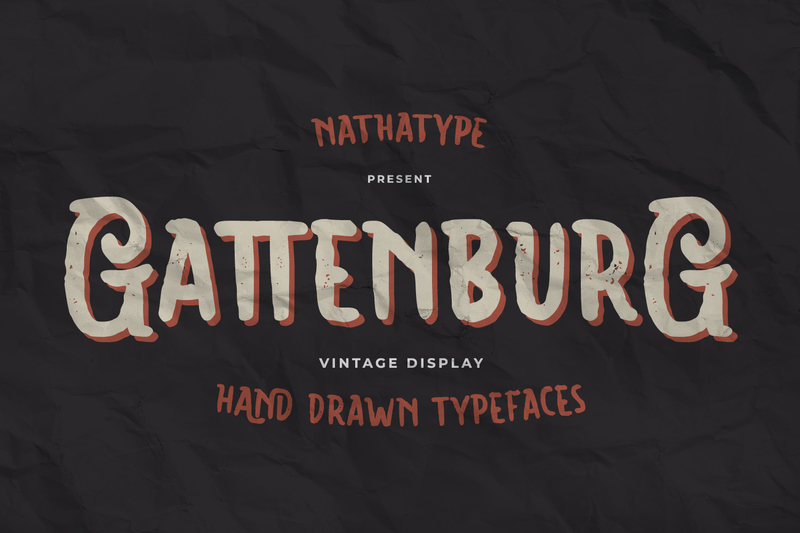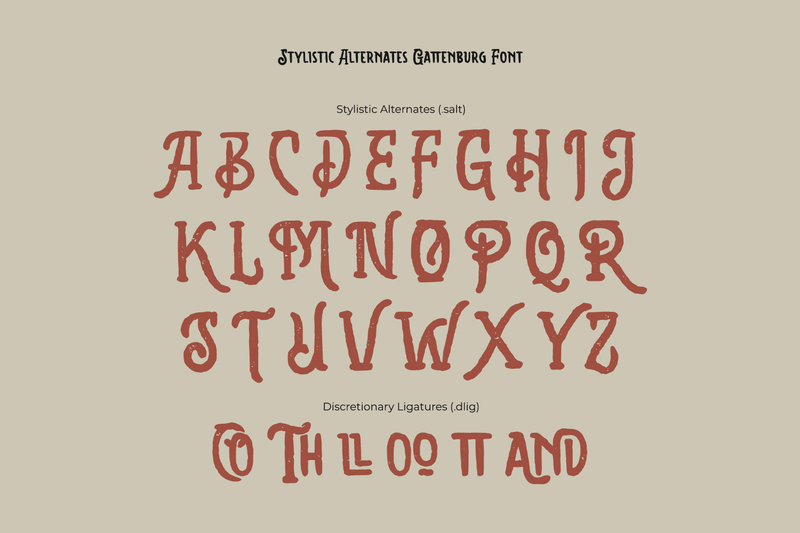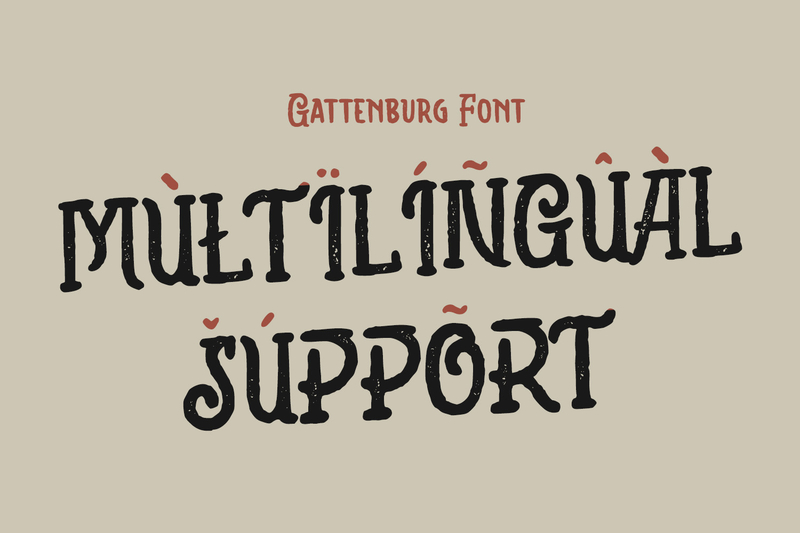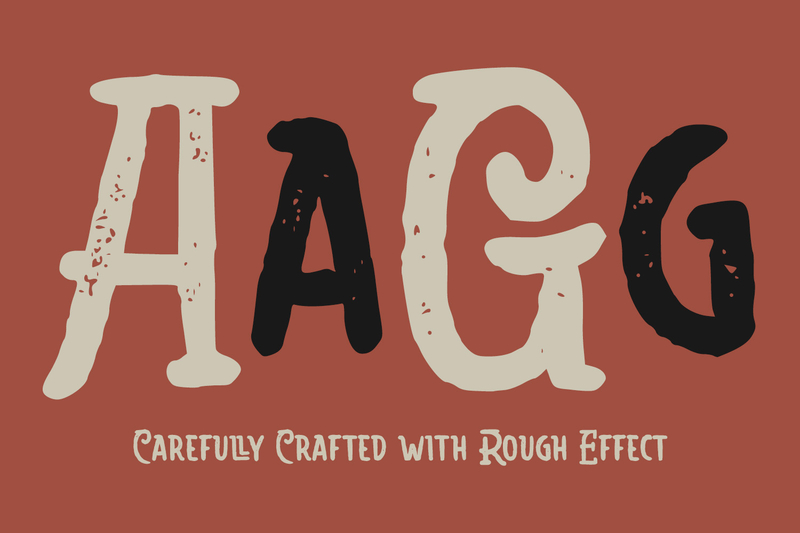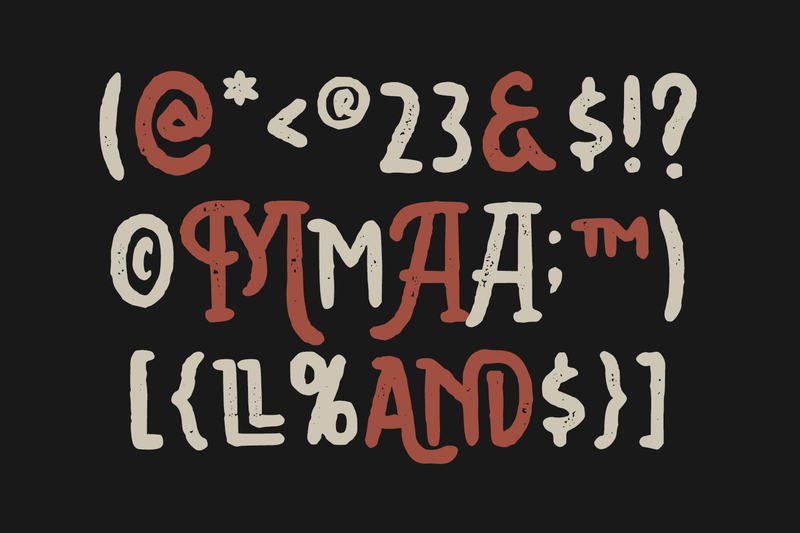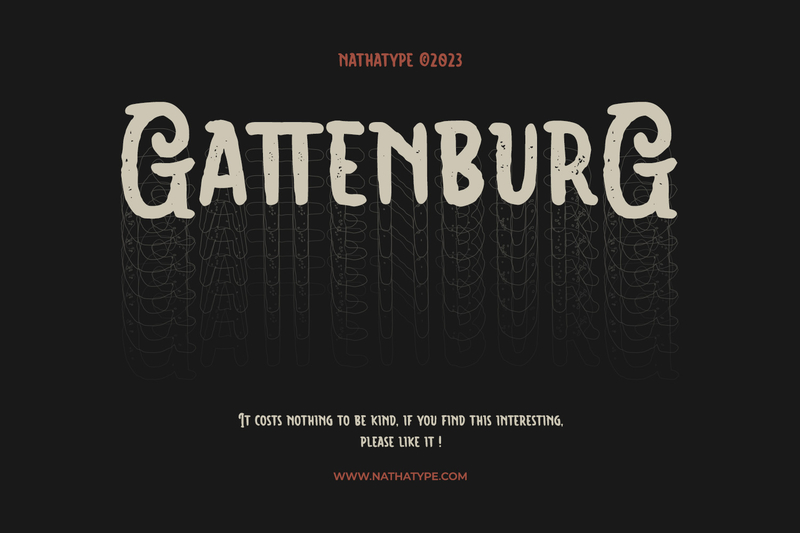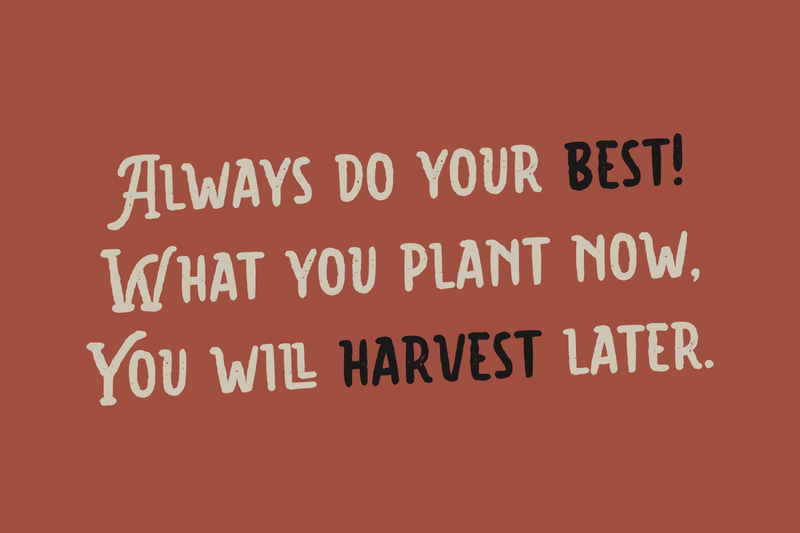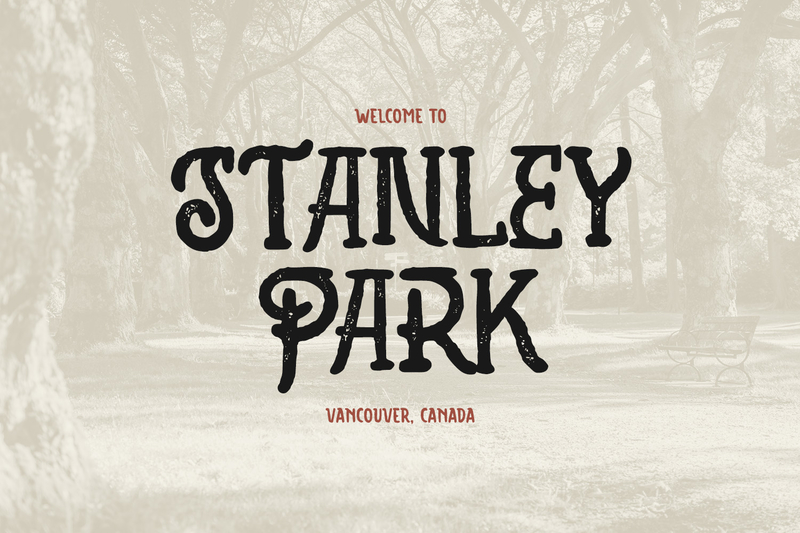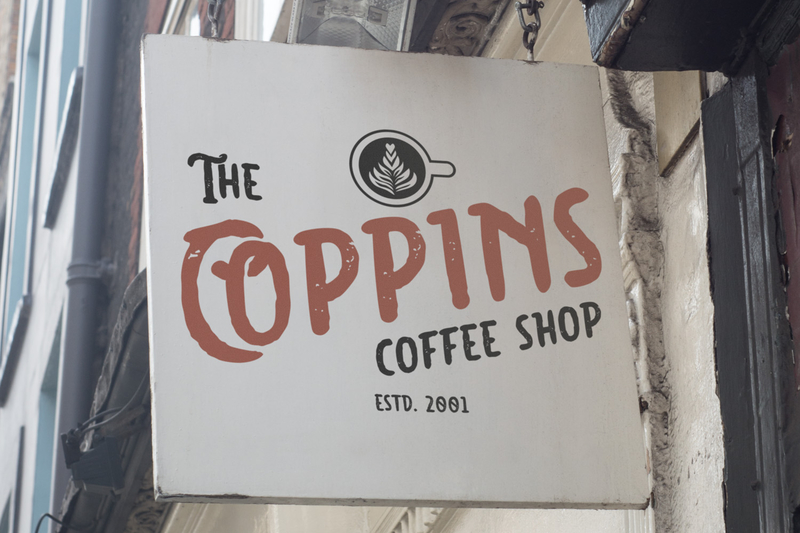
Step into the world of nostalgia and authenticity with Gattenburg, a display font that artfully marries vintage charm with a little bit rustic vibes. The irregularity design of Gattenburg lends this font to the handcrafted quality, inviting readers to connect with its character. Unlike the other rigid typefaces, Gattenburg favors curves and smooth lines, creating a sense of approachability and friendliness. These gentle, round shapes soften the vintage aesthetics, adding a touch of nostalgia without sacrificing readability.
What truly defines Gattenburg is its rough effect. The font carries a delightful worn and weathered appearance, as if it has endured the test of time. This roughness adds authenticity and character. In addition, Gattenburg gives ornaments as a special bonus. Enjoy the features here.
- Alternates
- Multilingual Supports
Gattenburg fits in headlines, logos, posters, flyers, branding materials, print media, editorial layouts, and many more. Find out more ways to use this font by taking a look at the font preview.